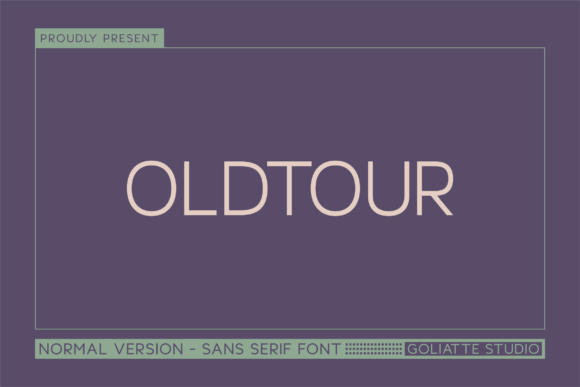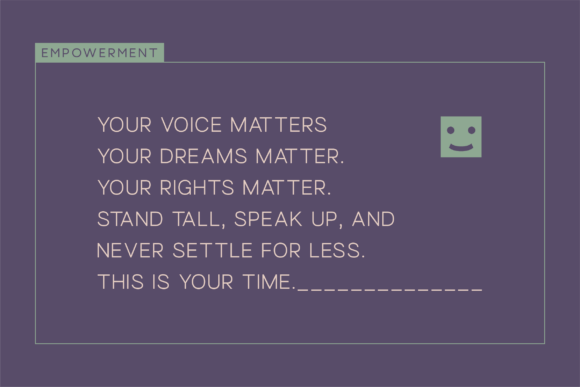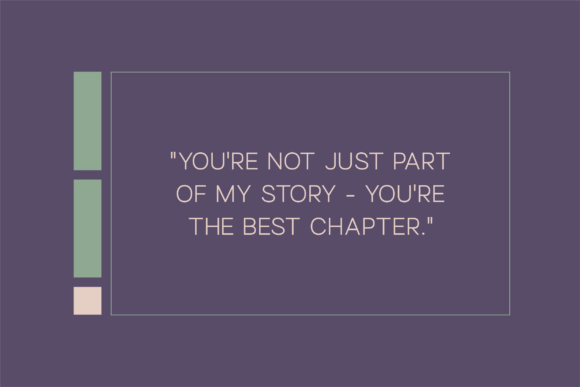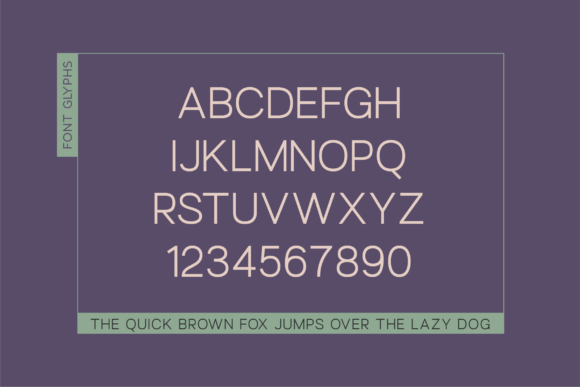
Oldtour Font: Modern Sans Serif for Clean Logo Design & Branding
About the Oldtour Font
Step up your design game with Oldtour Font, a font that exudes confidence and style. Introducing Oldtour – A Modern Sans Serif Typeface
Oldtour is a bold, all-caps sans serif font designed for the modern designer. With its clean lines and minimalist aesthetic, this typeface exudes strength and authority. It is perfect for projects that require a sense of professionalism and impact. Whether you’re designing a logo, website, or print material, Oldtour makes a statement with its sharp, crisp edges.
The strong, geometric structure of Oldtour ensures versatility, from digital interfaces to high-end branding. The all-caps design emphasizes clarity and readability, making it ideal for headlines, posters, and anywhere you need your message to stand out.
Features:
All-caps design for maximum impact
Modern, minimalist style with a focus on readability
Bold, clean lines for a confident and professional look
Ideal for branding, logos, packaging, and digital design
Perfect for both large-scale headlines and smaller text blocks
Oldtour is perfect for brands, agencies, and designers looking to create a modern, authoritative identity. It’s especially suitable for tech companies, corporate branding, and luxury design projects where style and readability are paramount.
Stand out with Oldtour – a typeface built to make an impression.
Oldtour Font Usage Examples
Oldtour Font Example